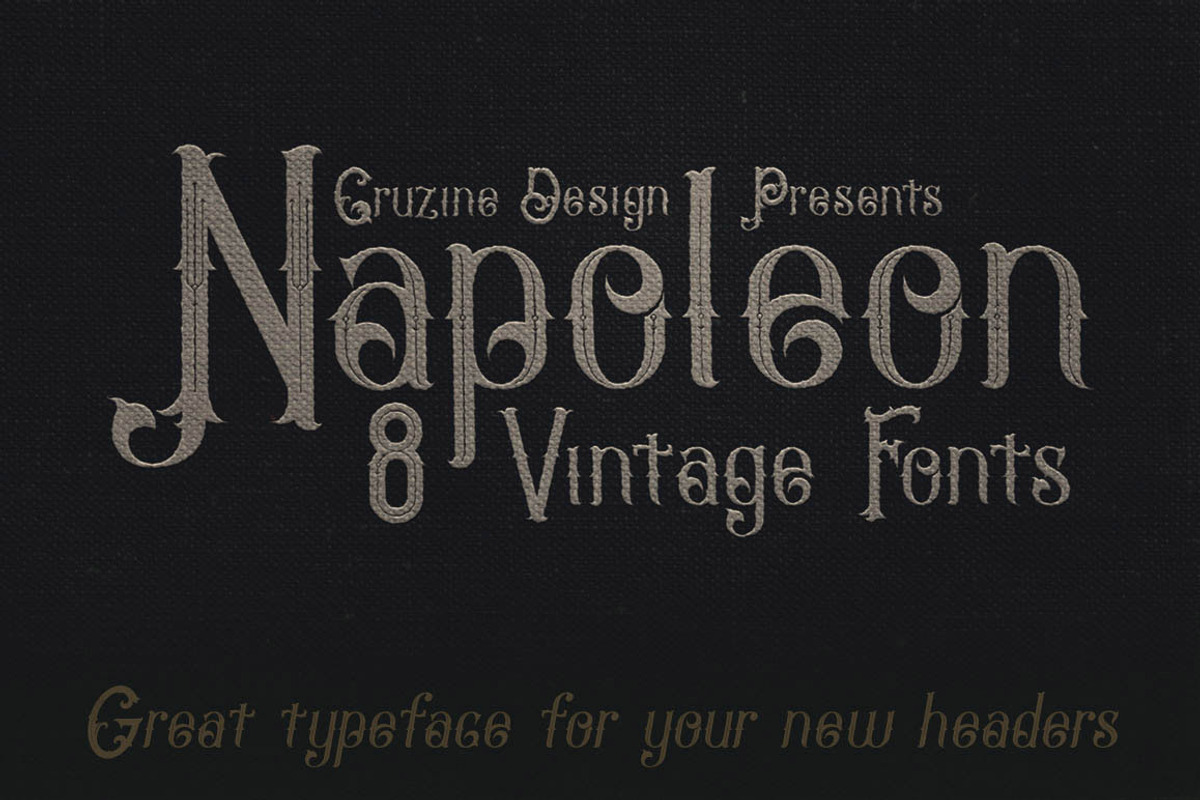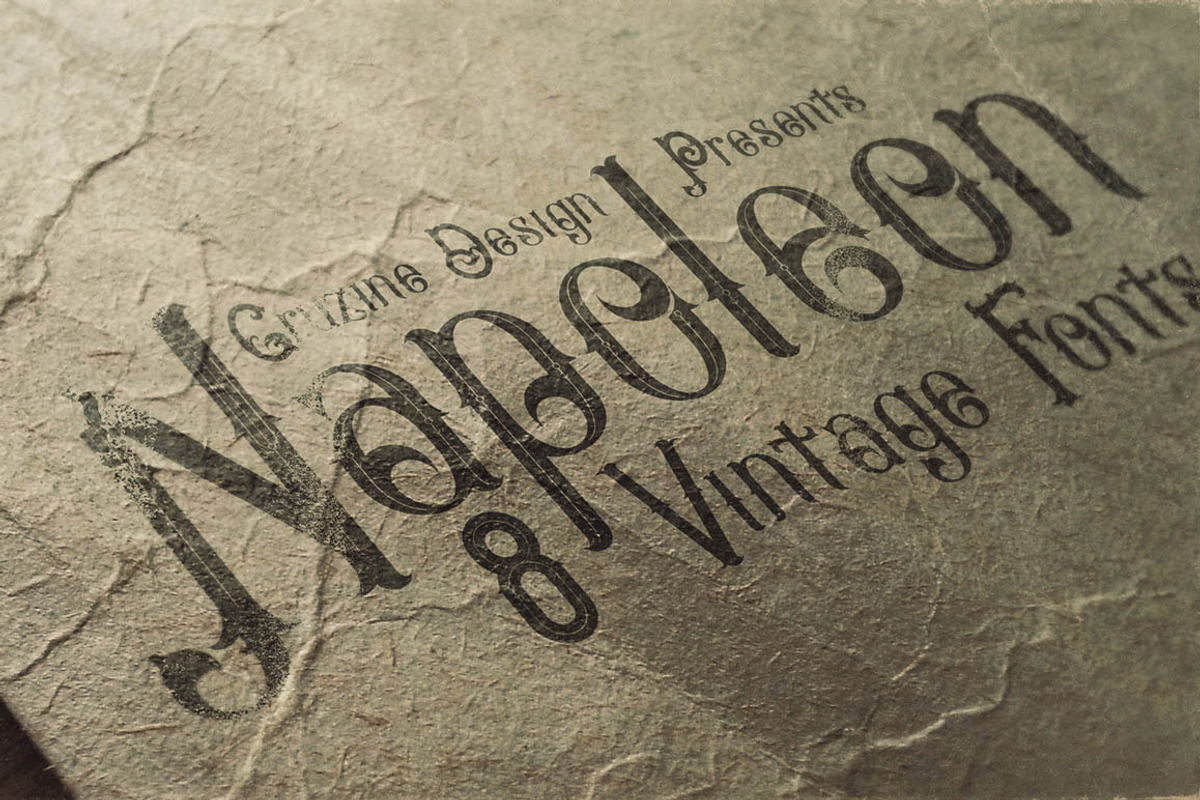
Napoleon Vintage Typeface
Napoleon Vintage Typeface by Cruzine is a font selected for branding, posters, packaging, typography.
Why Napoleon Vintage Typeface is worth a look
Napoleon Vintage Typeface by Cruzine fits naturally into Branding, posters, packaging, typography.